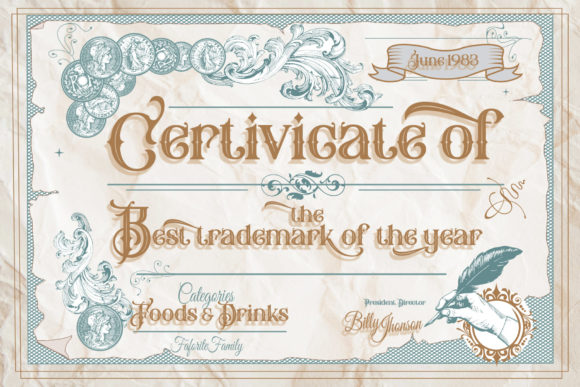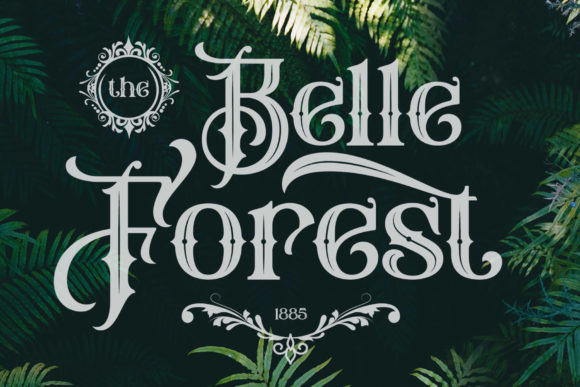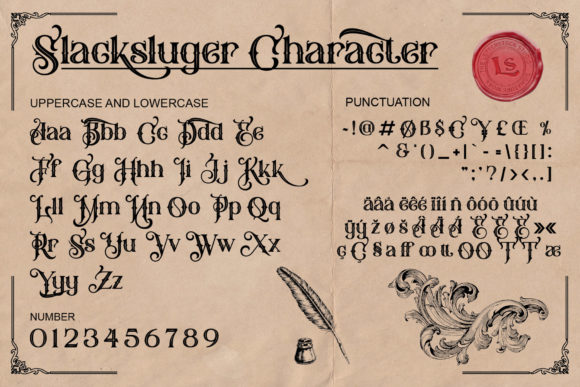
Introduction to Slacksluger Font
Slacksluger is a highly detailed and incredibly dramatic blackletter font.
👤 Author Gumacreative
This font was particularly crafted for those who need a spooky and aggressive look to their designs .
Why Choose Slacksluger Font?
Slacksluger Font offers exceptional quality and versatility, making it a valuable addition to your design toolkit. Whether you’re creating for personal projects or commercial use, Slacksluger Font delivers professional results.